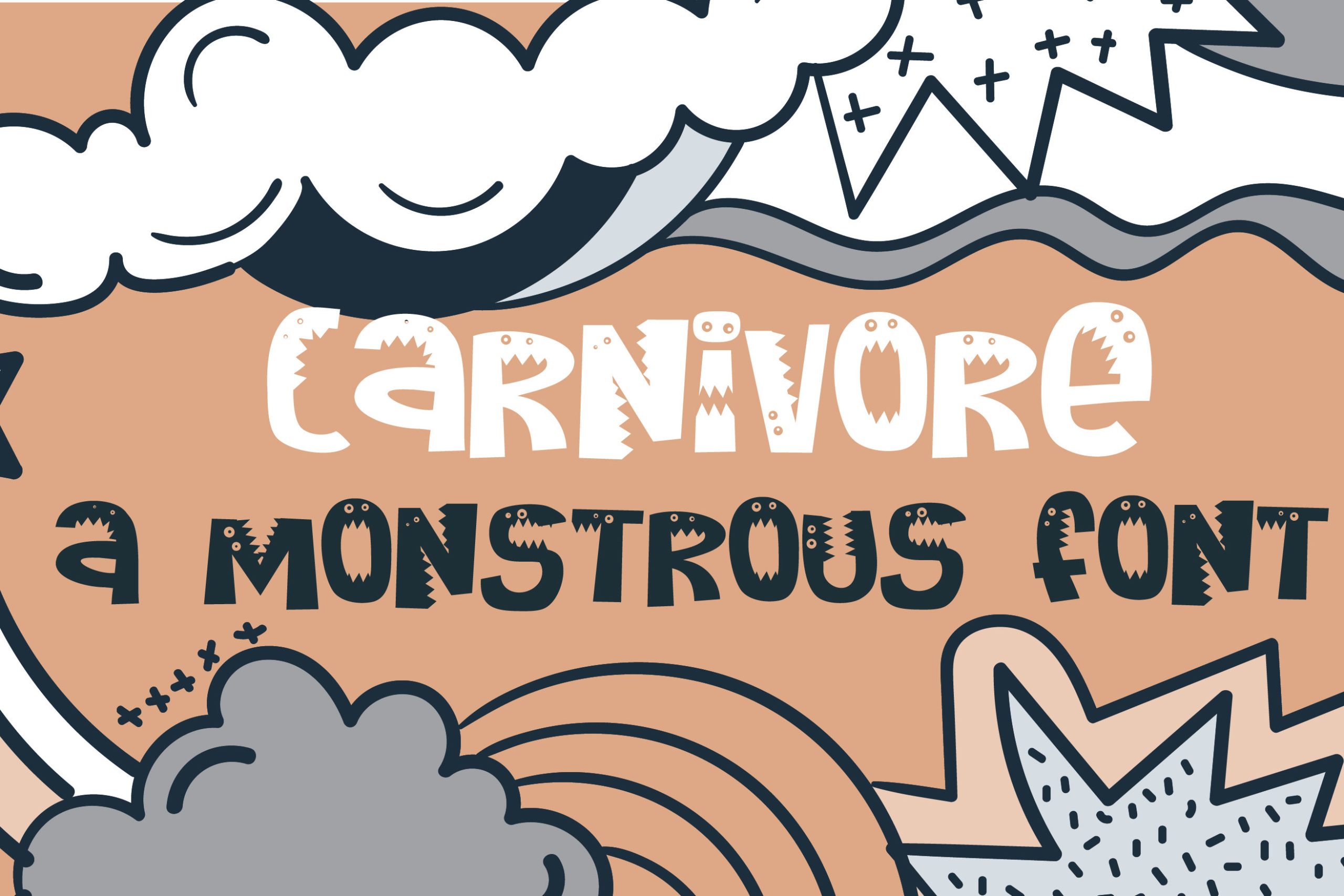
This whimsy decorative font has teeth, eyes, and fur throughout. It can make your creations come alive, so use it for anything fun and youthful.
Font Name: Carnivore Font